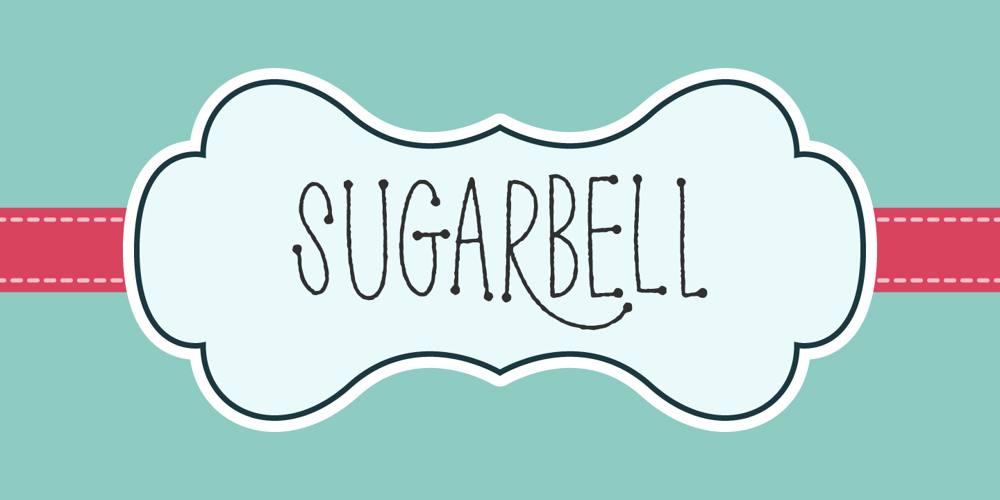
Sugarbell Font Family was designed by Jakob Fischer and published by PizzaDude.dk. Sugarbell contains 1 styles and family package options. Sugarbell is ready for your next project that needs a little extra handmade energy!